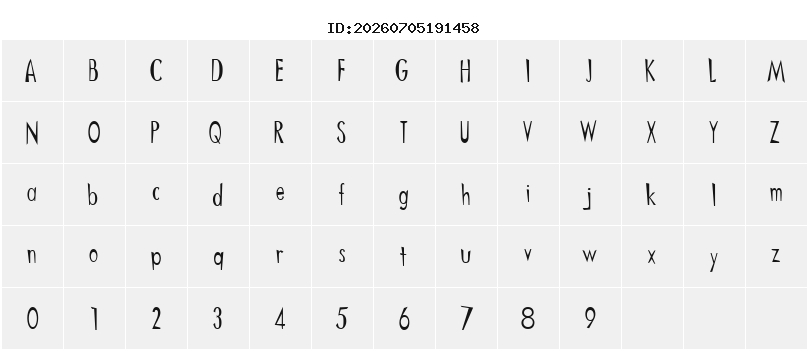
Ditnees Preview
• Font Name: Ditnees
• Font ID: Altsys Fontographer 3.5 Ditnees Regular
• Full Font Name: Ditnees Regular
• Version: Altsys Fontographer 3.5 3/16/92
• PostScript Name: Ditnees Regular
About Ditnees.ttf
Ditnees.ttf is a modern, elegant sans-serif font designed for ultimate readability and visual harmony. Perfect for branding, headlines, web design, and print materials.